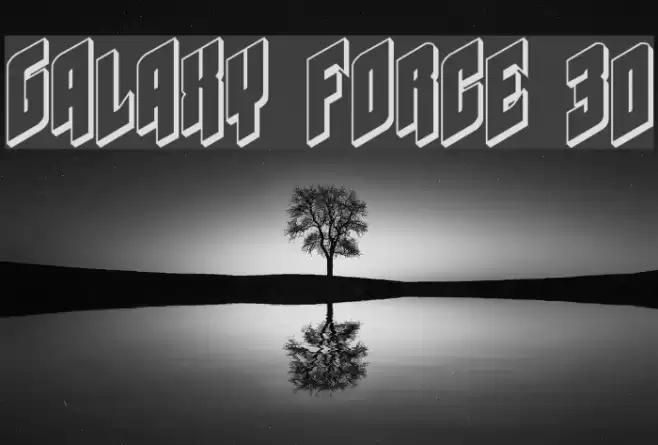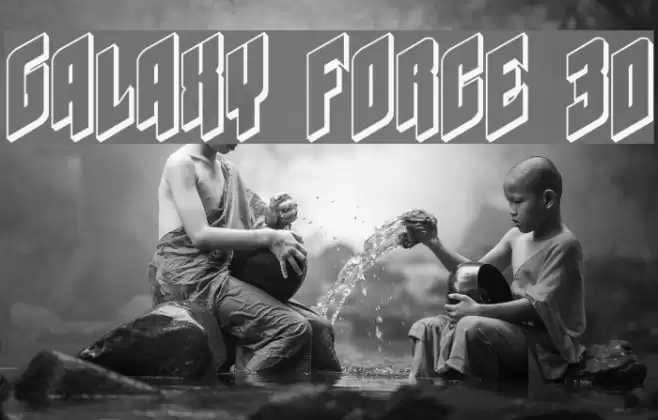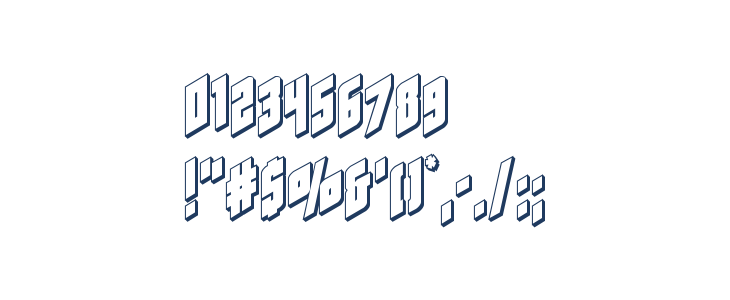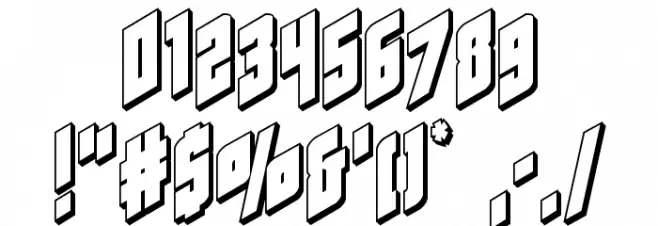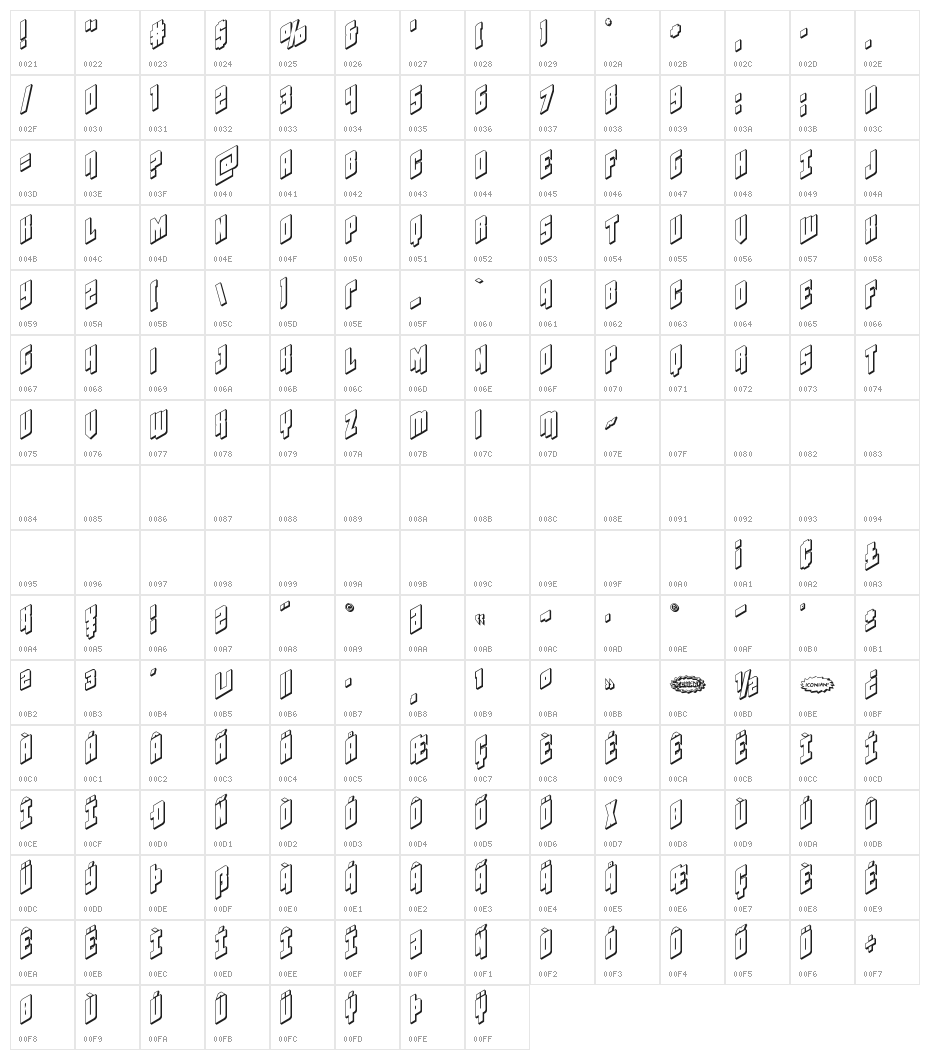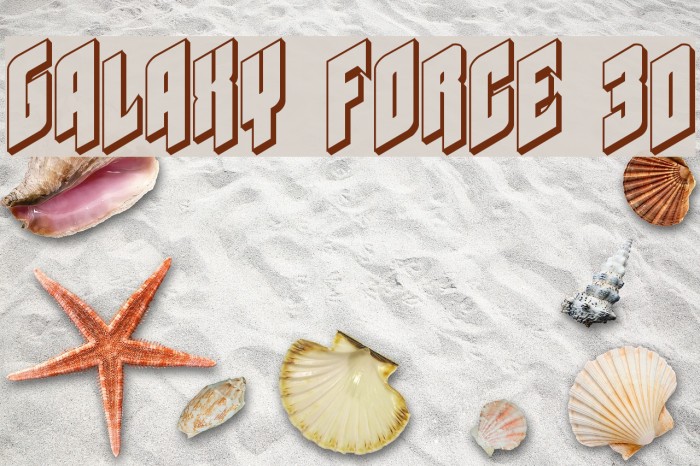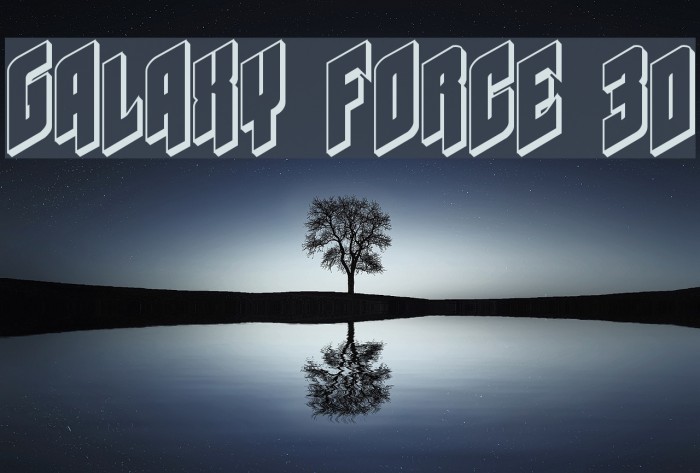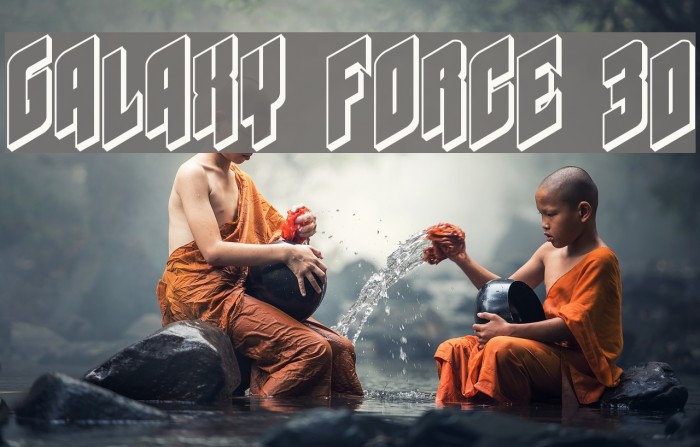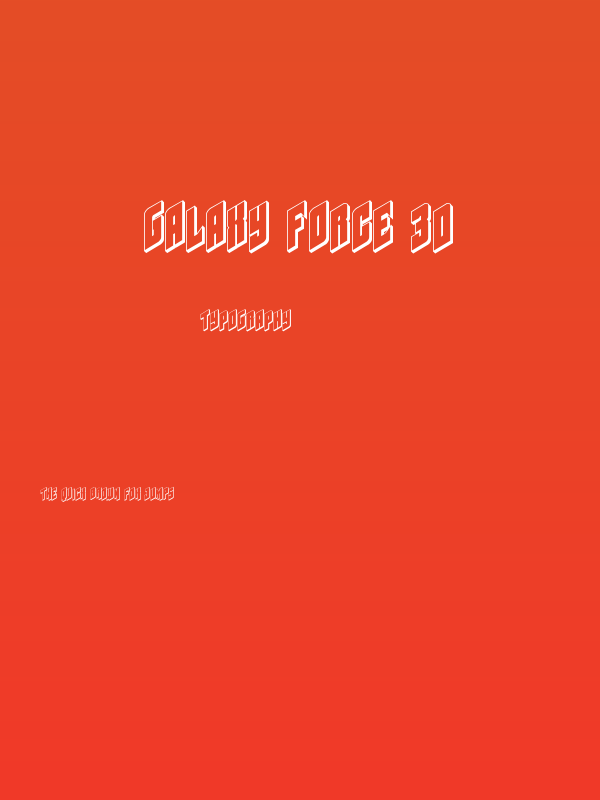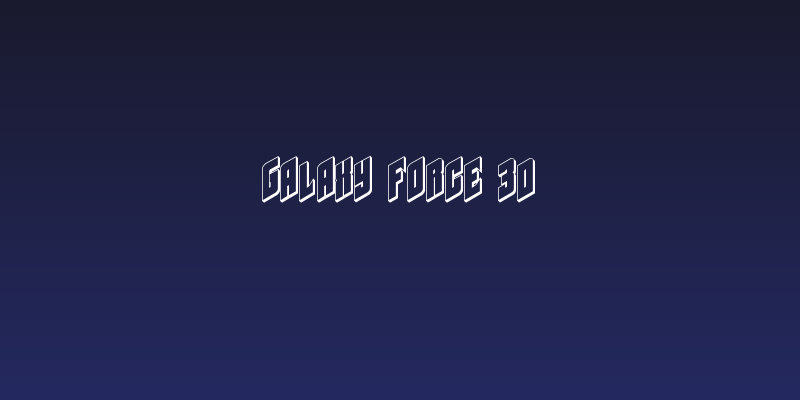
Galaxy Force 3D Font
Galaxy Force 3D Description
This font features a bold, three-dimensional design with a distinct shadow effect that gives each character a sense of depth and dynamism. The uppercase letters are prominently styled with sharp angles and a blocky appearance, making them stand out with a futuristic and robust aesthetic. The numbers and special characters follow the same design principles, ensuring consistency across all glyphs. The font's strong visual impact makes it ideal for projects that require a bold statement or a modern, tech-inspired look.
A bold, 3D font with a futuristic and dynamic style from Uncategorized fonts.
- Proposed Projects: Ideal for video game titles, sci-fi movie posters, tech branding, and any project requiring a strong, modern aesthetic.